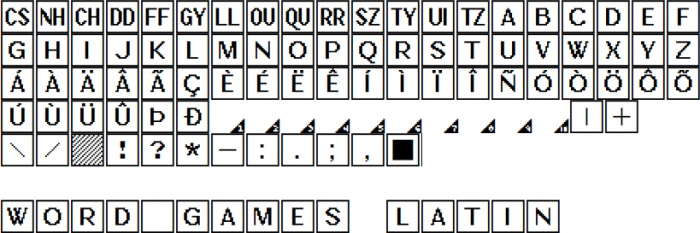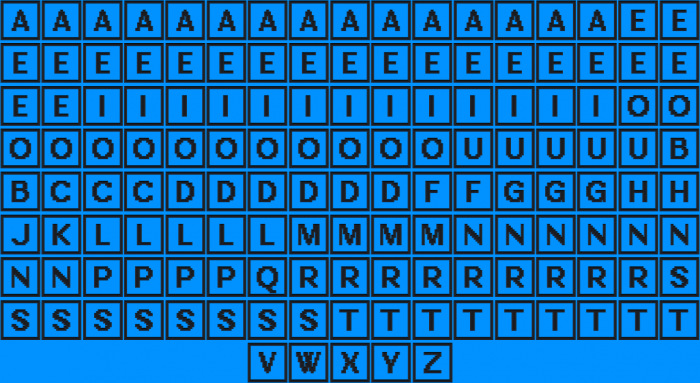
• This font is made for word games like scrabble, wheel of fortune, word search, crosswords. I have included a lot of digraphs and trigraphs that may be considered a single tile in some languages (according to this article: http://en.wikipedia.org/wiki/Scrabble_letter_distributions). Numbers 0-9 can be used to assign scrabble scores to the previous letter (since they are different for each language). 0 stands for 10 points.
Nicely executed. I like the way we can add numbers to tiles.
Thank you! That's the Hungarian scrabble tile set in the example BTW.
The ultimate scrabble extension set for linguists.
They’re there. They’re just stacked on top of each other so you can’t see them.
tried doing the countdown letters distribution with this font (http://thecountdownpage.com/letters.htm [likely obsolete])